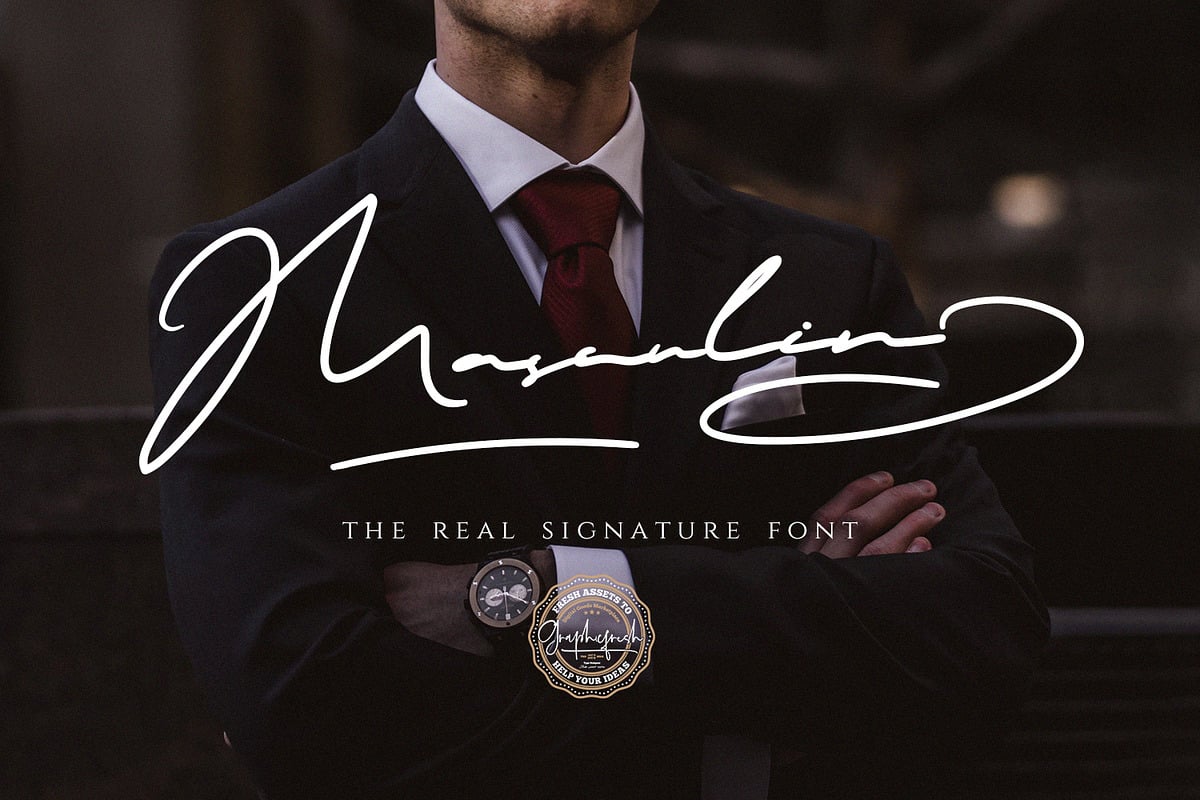
MASCULIN - The Real Signature Font
A bold, authentic signature font crafted to look like the real thing — refined, clean, and unmistakably masculine.
MASCULIN is a signature-style script font built for creatives who need a typeface that feels genuine and handcrafted. This font was developed with one goal in mind: to produce a signature font that looks truly original and authentic.
With its clean lines and unique character design, MASCULIN is perfectly suited for:
- Logos and brand identity
- Name cards and business cards
- Magazine layouts
- Invitations
- Headers and titles
- Large-scale artwork